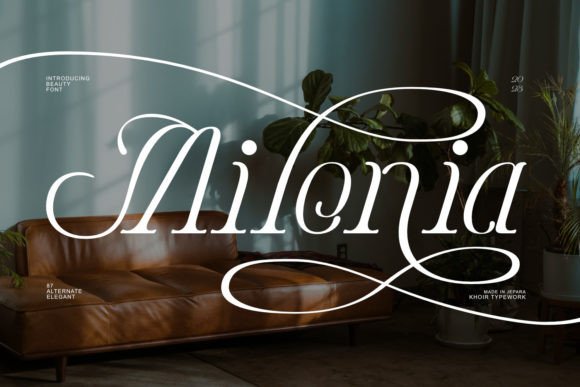
In a world of digital artistry, typography reigns supreme. Let your designs dance with the exquisite beauty of Milonia, a serif font crafted to captivate and allure. This font family is not just a collection of letters; it's an orchestra of elegant curves and stunning tails, harmonizing to create a visual symphony.
With Milonia, transform your designs into masterpieces. Its diverse array of alternative fonts empowers you to unleash your creativity, like a conductor leading an orchestra of visual elements. Every letterform, every stroke, every detail is meticulously crafted to orchestrate a visual feast that will leave your audience spellbound.
Embark on a typographic journey with Milonia and elevate your designs to new heights. Its inherent beauty and versatility make it the perfect choice for titles in Canva, where every pixel matters. Whether you're crafting social media posts, captivating presentations, or visually stunning graphics, Milonia will elevate your words, making them sing with grace and sophistication.
Immerse yourself in a world where fonts are not just symbols, but works of art. Let Milonia's enchanting curves and delicate flourishes cast a spell on your designs. Its timeless elegance will leave an indelible mark on your audience, ensuring that your message resonates with clarity and impact.